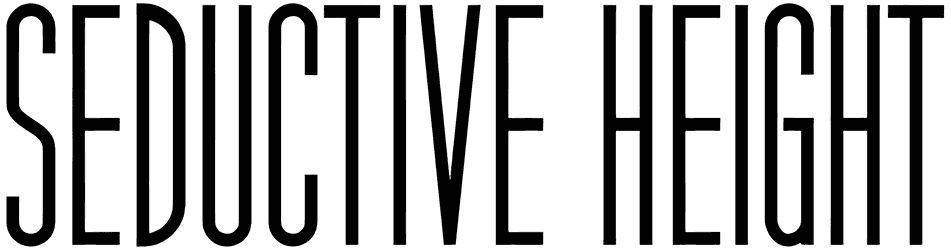
Castrade Font
You can’t go wrong with Castrade if you are looking for a minimal yet grabby font to appeal to your target audience. Castrade is from the modern sans serif font family and comes with monoline, thin, modern, and minimal characters.
Although there are no numbers in the character collection, this luxury sans serif font has so many great features that you can overlook the lack of numbers. Castrade works wonders on your branding, logotypes, apparel design, apps, and so on.